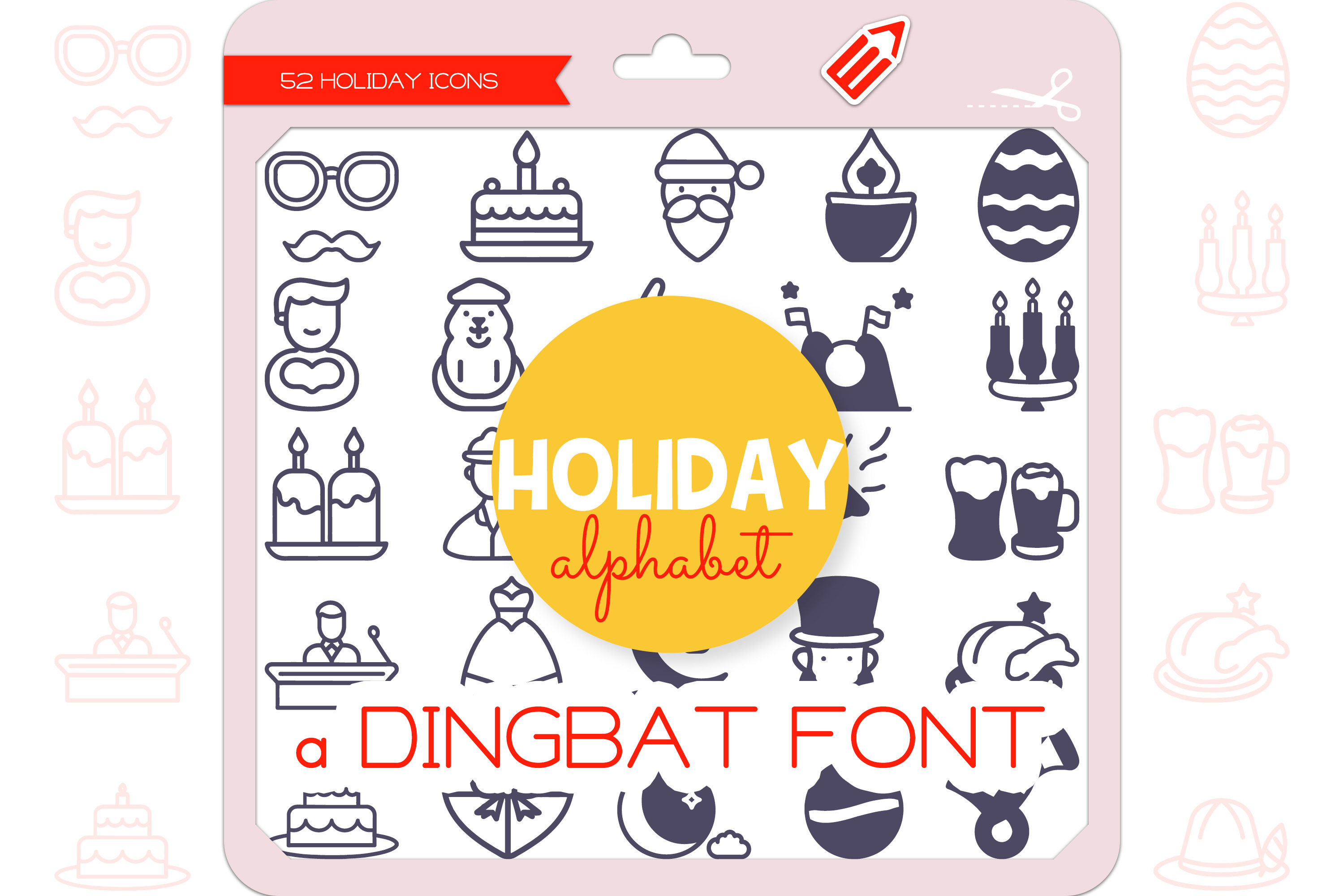
Holiday Alphabet - Dingbat Font
Holiday Alphabet is a unique and cute dingbat font, each Holiday icon representing each letter of the alphabet from A to Z. It contains 52 icons in 2 styles (Outline & Filled-Outline). Add this font to your creative ideas and make your arts outstanding!
The Holiday Alphabet Icons Dingbat Font featuring 26 A-Z days April Fool's Day, Birthday, Christmas, Diwali, Easter, Father's Day, Groundhog Day, Halloween, Independence Day, Jewish Holidays, Kwanzaa, Labor Day, Mother's Day, New Year's Day, Oktoberfest, President's Day, Quinceanera, Ramadan, St. Patrick's Day, Thanksgiving, Unbirthday, Valentine's Day, Winter Solstice, Xmas, Yom Kippur, Zawalich